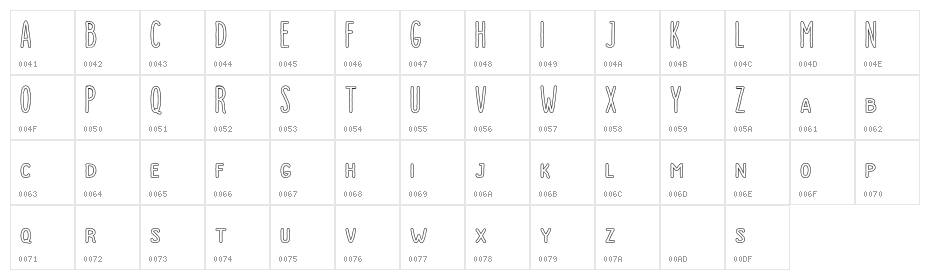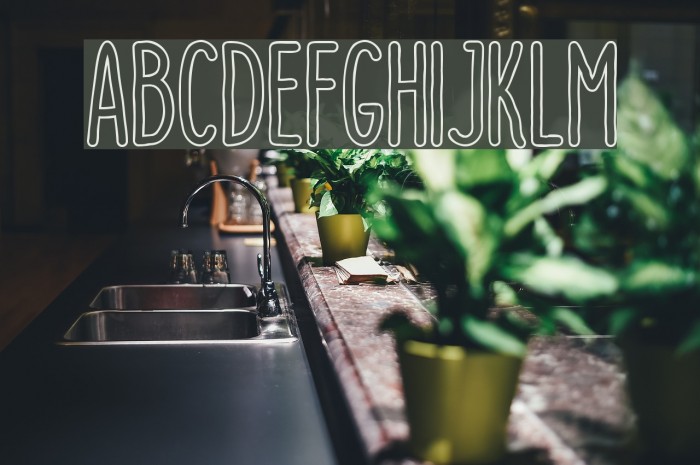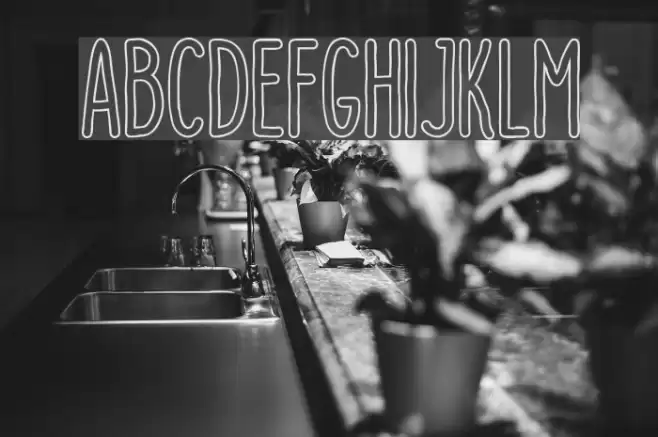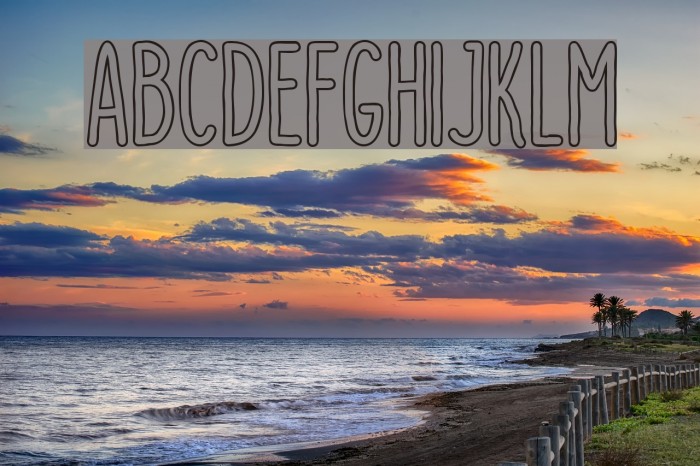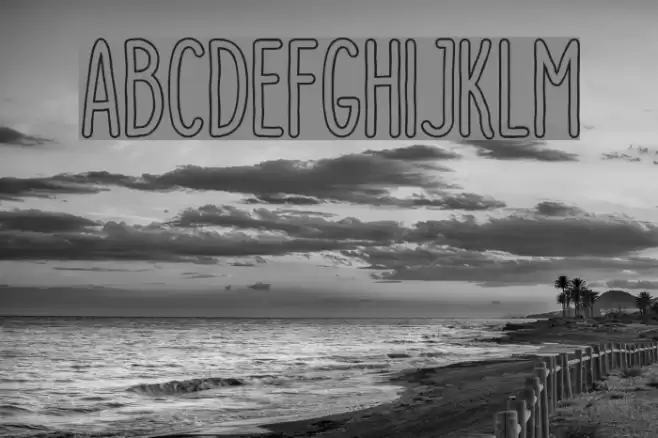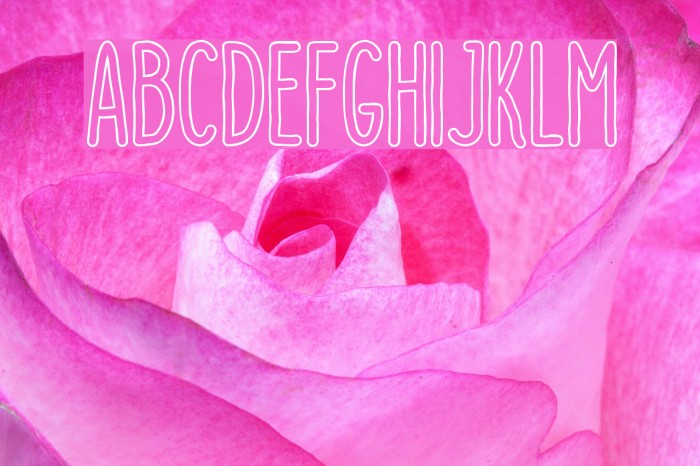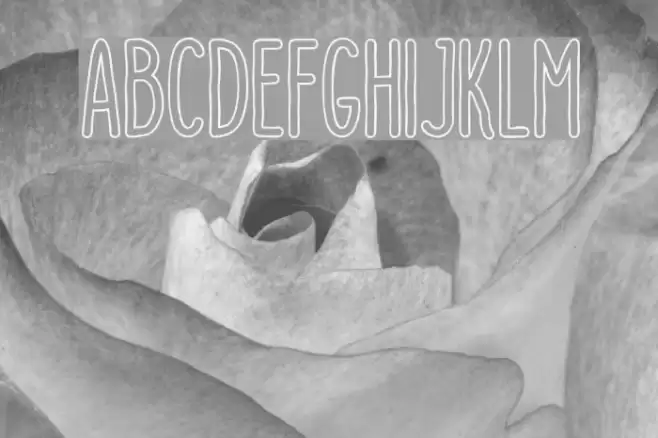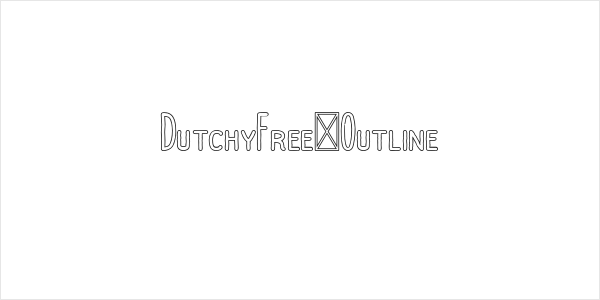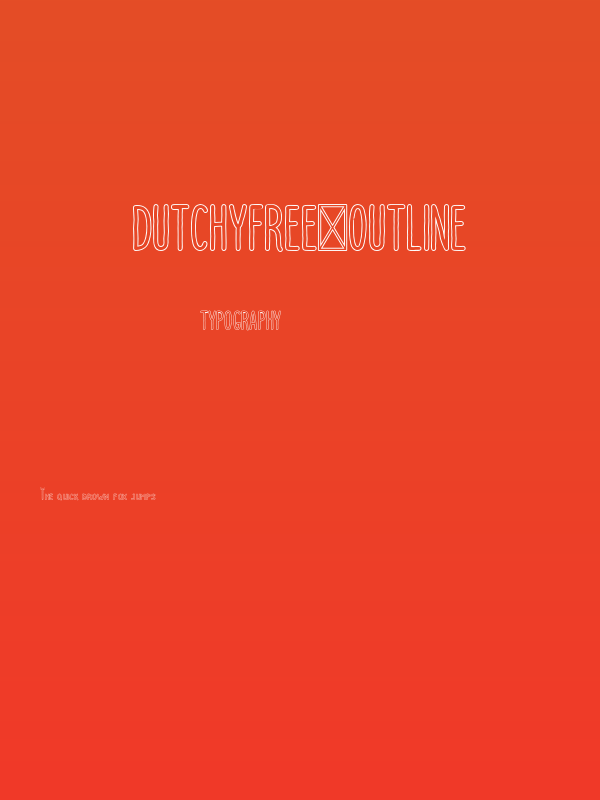
DutchyFree-Outline Font
DutchyFree-Outline Description
This font features a playful and modern outline style, characterized by its hollow letterforms that give a sense of lightness and creativity. The uppercase letters are bold and well-defined, with a consistent stroke width that maintains clarity and readability. The font's design is clean and minimalistic, making it suitable for a variety of design projects that require a touch of modernity and fun. The absence of lowercase letters and numbers suggests a focus on decorative use, particularly in headlines or logos where a bold statement is desired. The spacing between characters is normal, ensuring legibility while allowing the unique outline style to stand out.
| Proposed Projects | Ideal for headlines, logos, posters, and any design project that requires a modern and playful touch. |